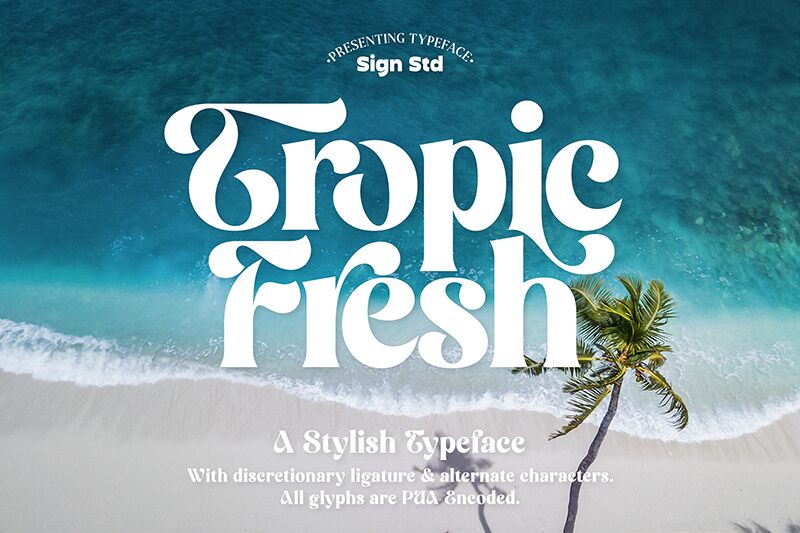
Tropic Fresh, designed by Sign Studio, is a bold and stylish display font that exudes a retro vibe. Its captivating curves and unique letterforms make it suitable for a variety of projects. Use Tropic Fresh to create eye-catching headlines, logos, or packaging designs that demand attention. Whether you're working on a vintage-inspired poster or a trendy fashion campaign, this font will add a touch of nostalgia and sophistication to your work. Let Tropic Fresh transport your audience back in time while giving your designs a fresh and modern twist.
Tropic Fresh
Tropic Fresh font by Sign Studio